Spine (in type design)
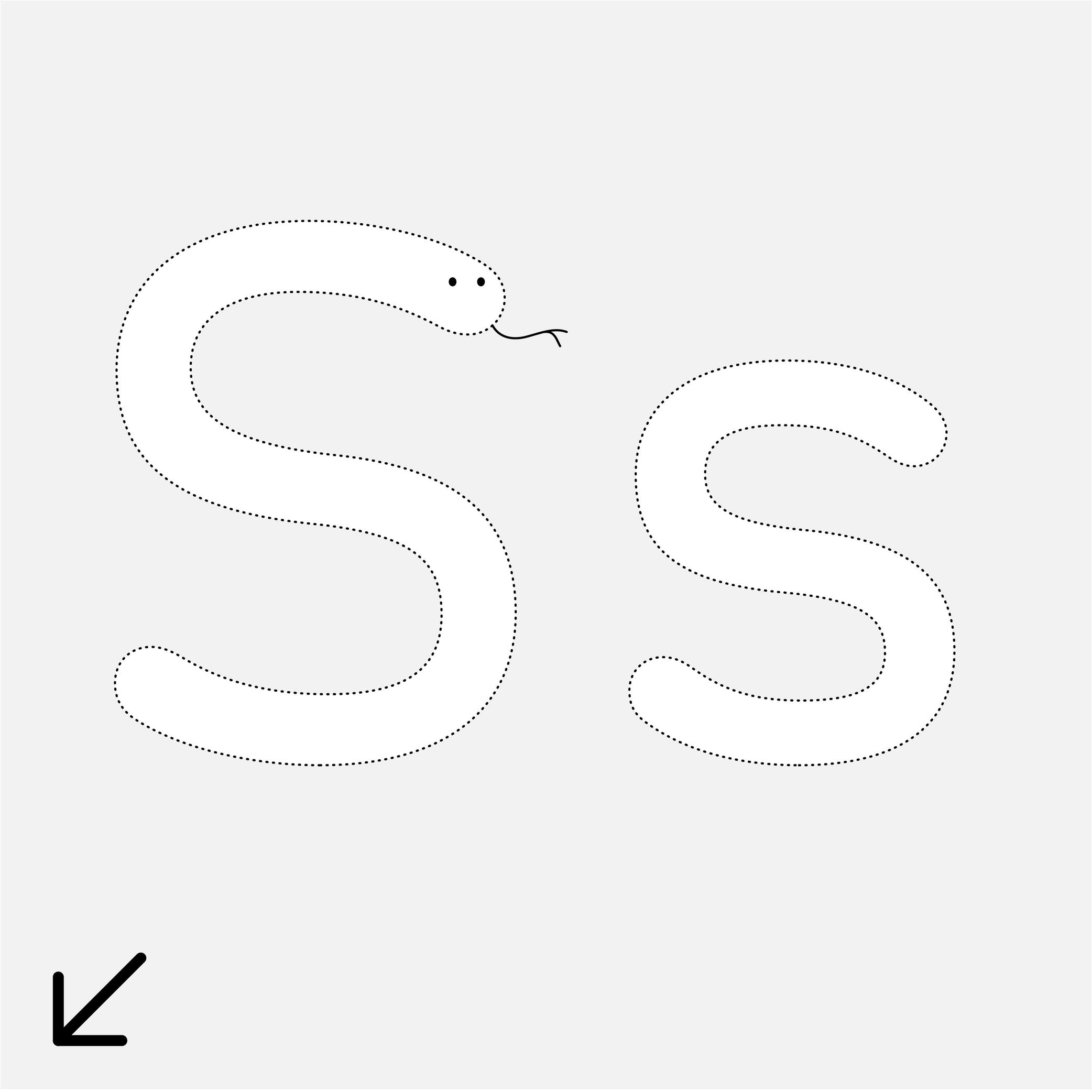
Many terms are borrowed from architecture or human and animal anatomy to designate and describe parts of letters and other characters. We even speak of type design anatomy.
In the Latin script, the spine is the middle curve segment of characters like s or S.